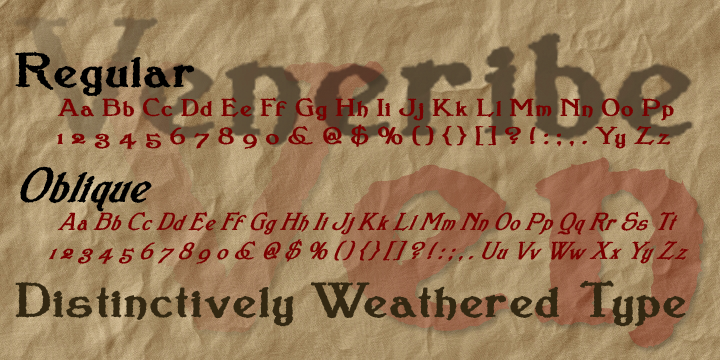
Veneribe is a historical font family. This typeface has two styles and was published by Greater Albion Typefounders.
Veneribe -the Venerable face- is an experiment in what many today might call ‘grunge’, though we at Greater Albion would probably prefer to talk of rustic (or if we’re feeling really old-fashioned rustick) charm. It’s a derivative of our Clementhorpe family, and aims to combine a battered antique look with the charm of that decorative Roman family. Regular and oblique form s are offered.